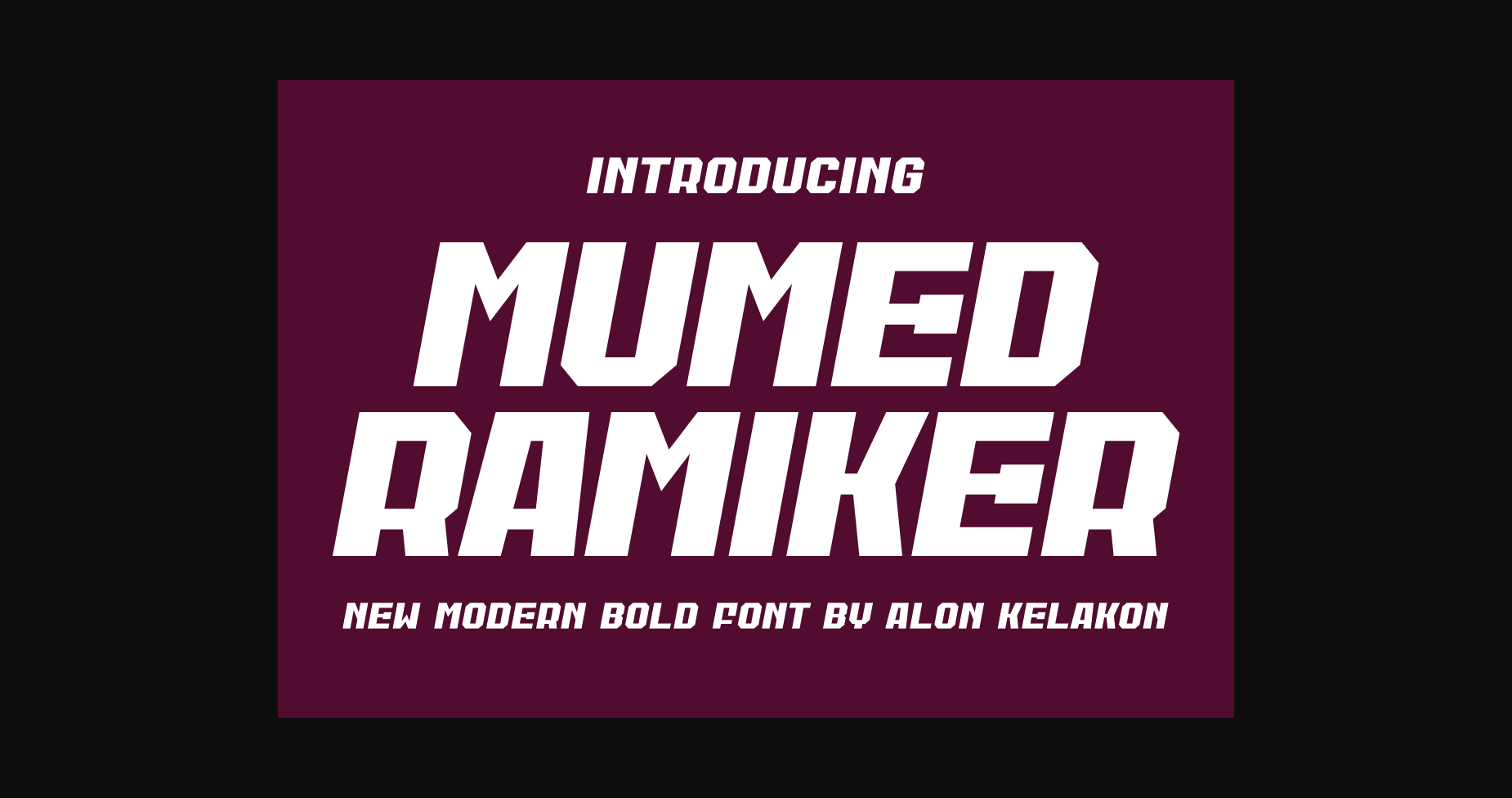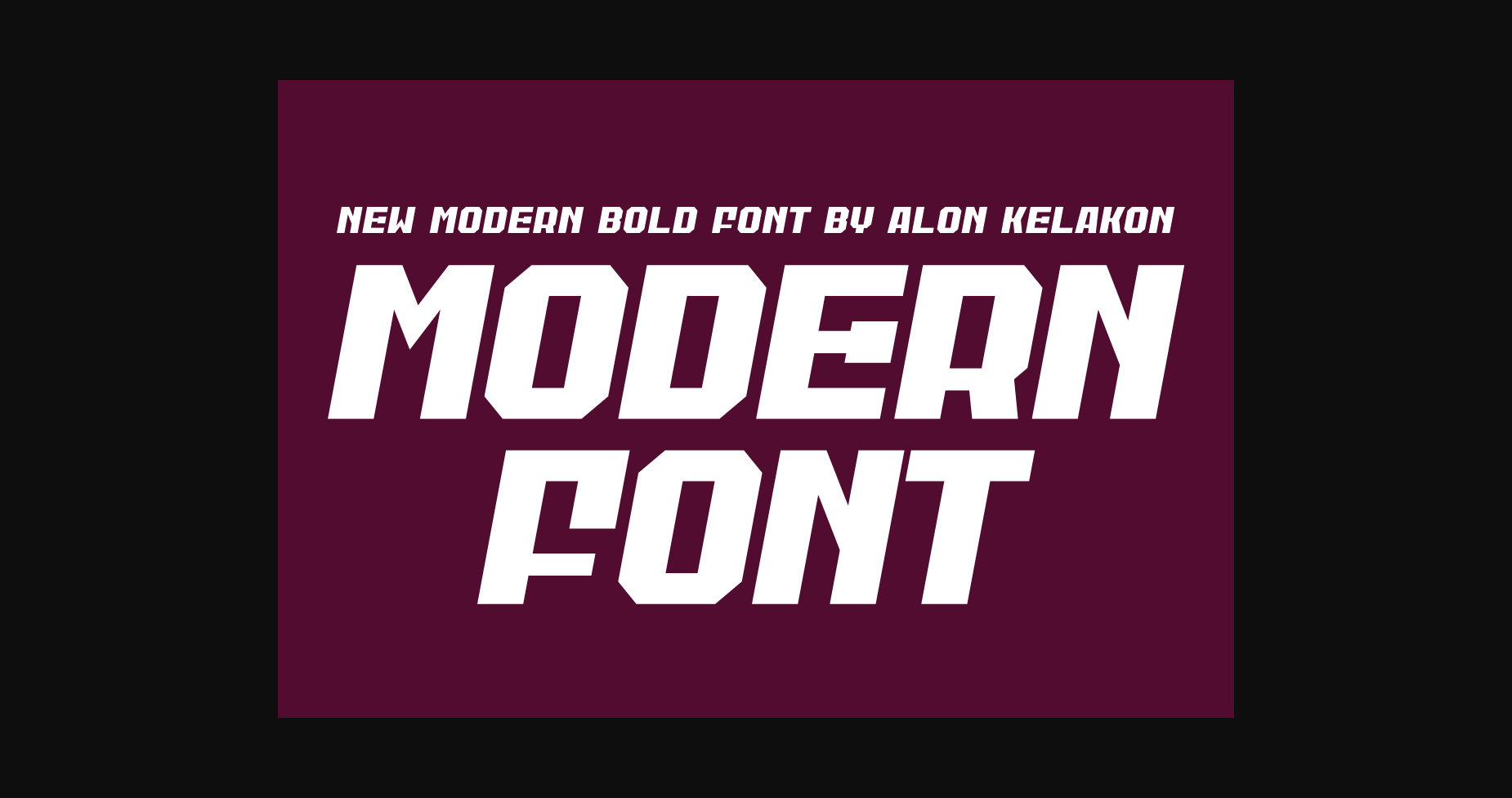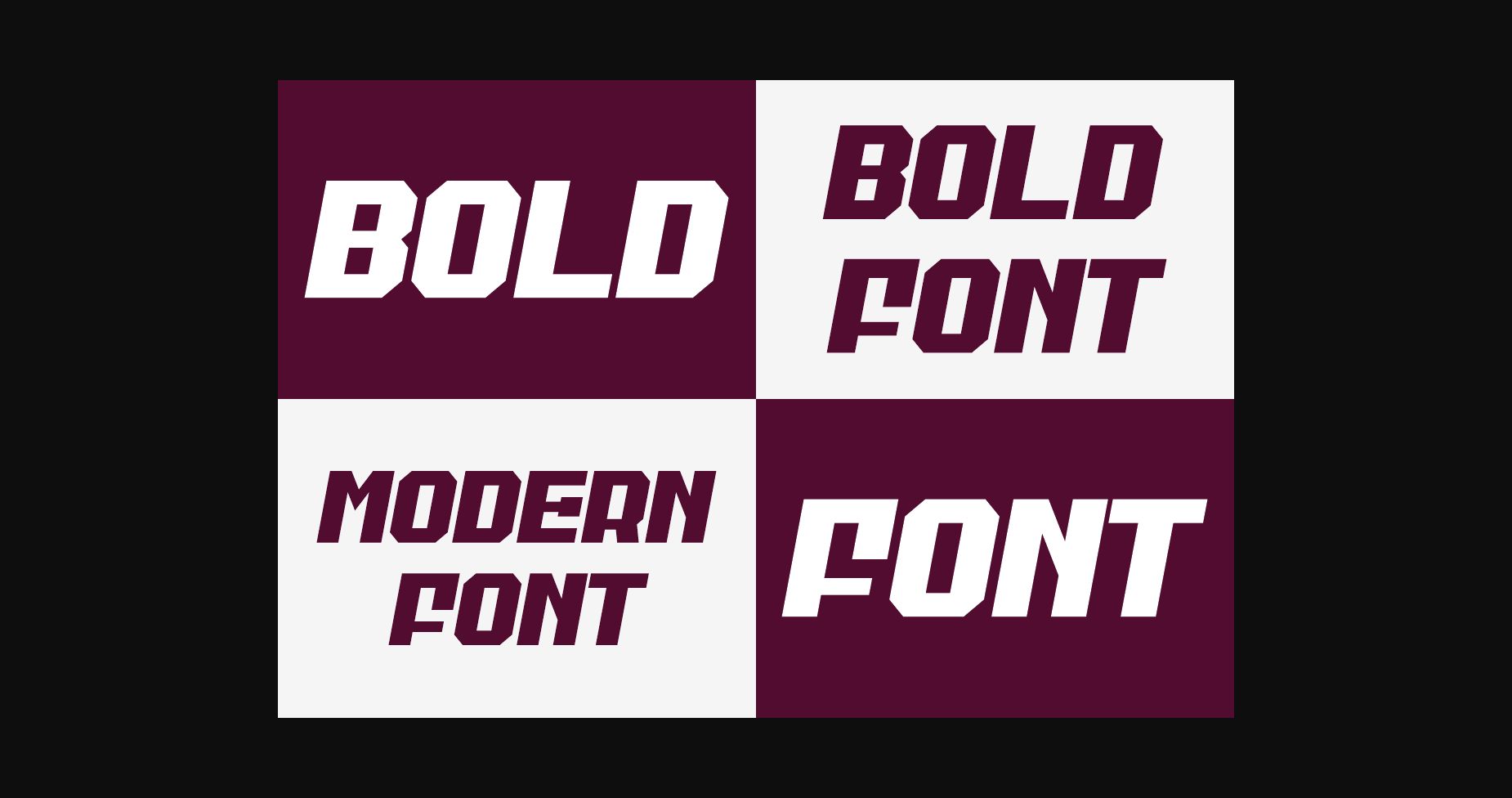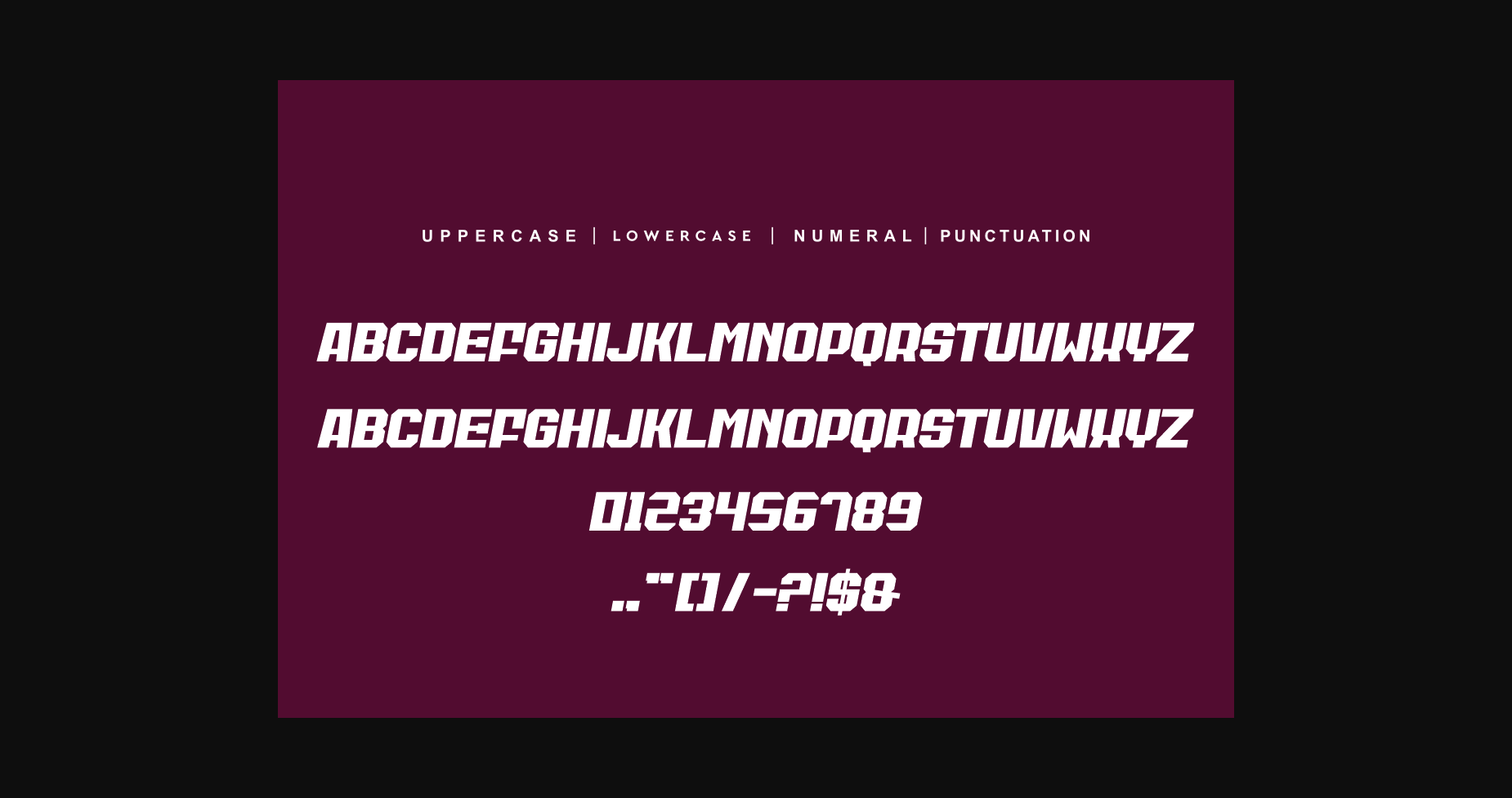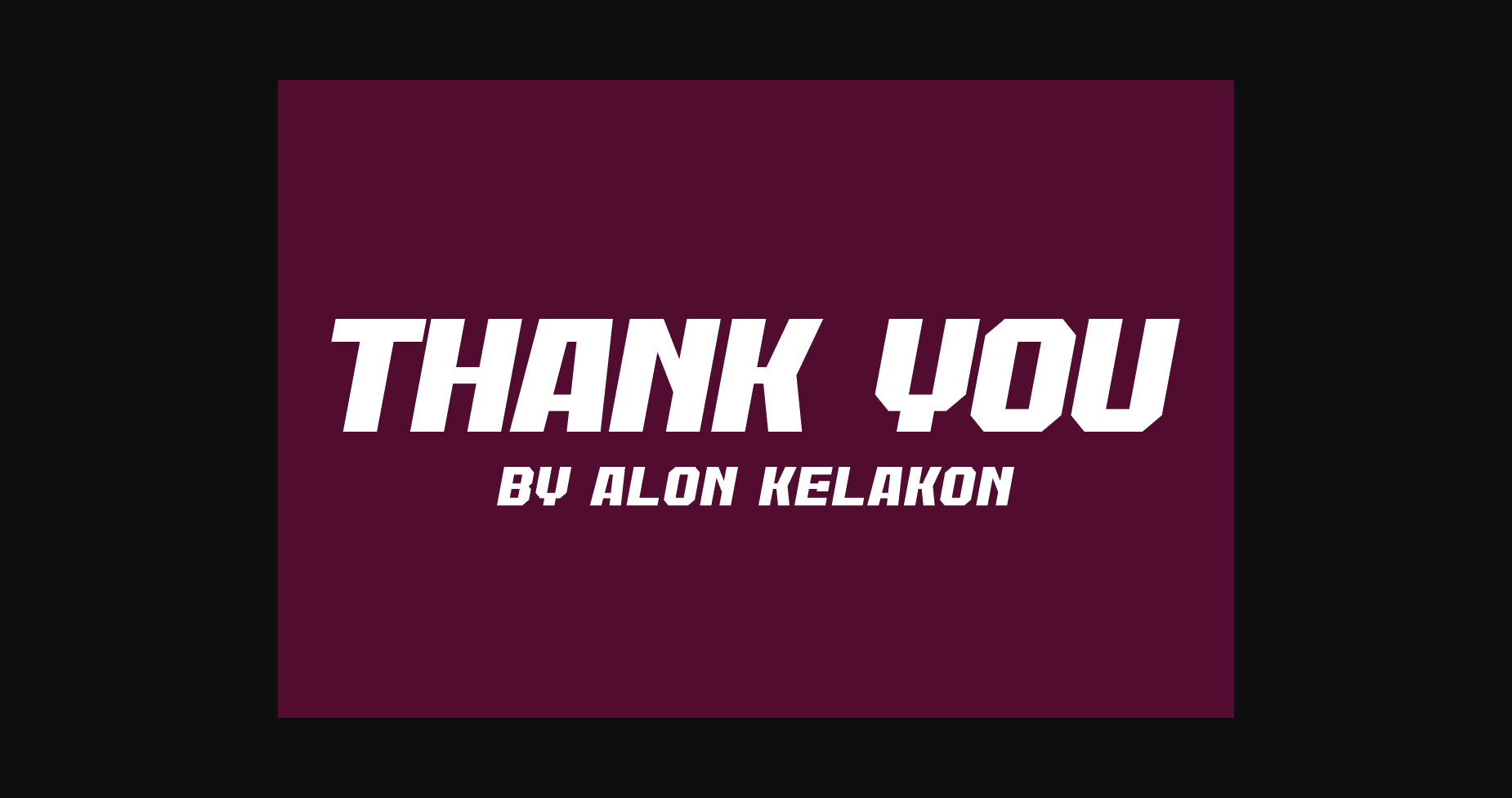
Mumed Ramiker Font
About Mumed Ramiker Font
Mumed Ramiker is a strong and masculine sans serif font. Its geometrical-shaped characters are perfect for adding a daring and powerful accent to your designs.